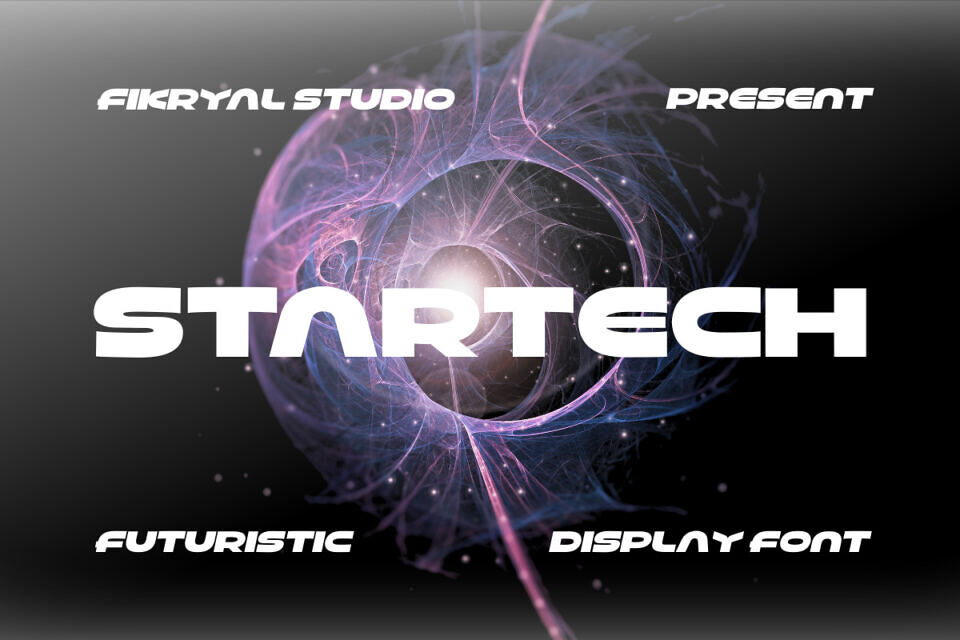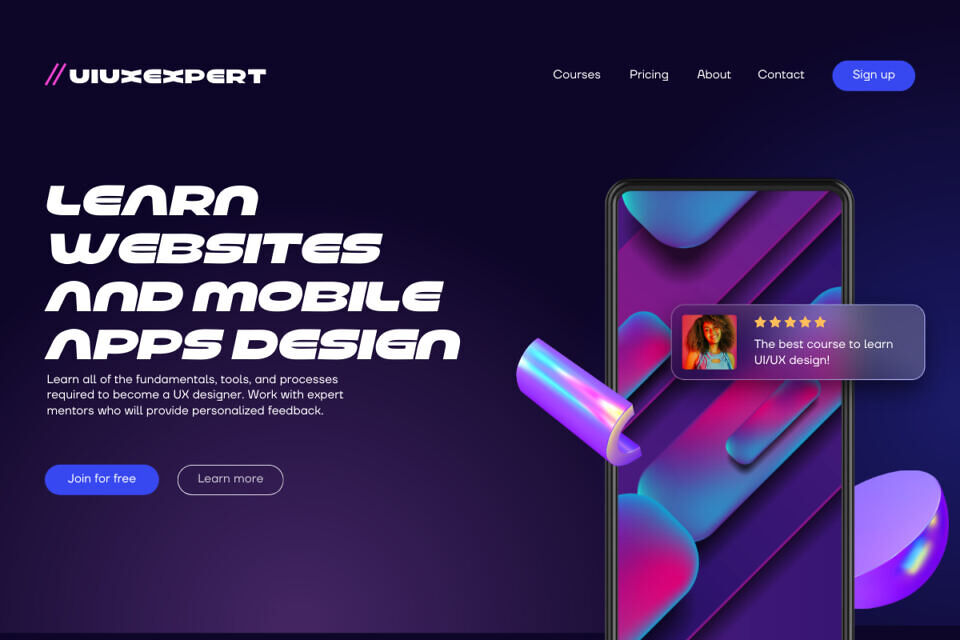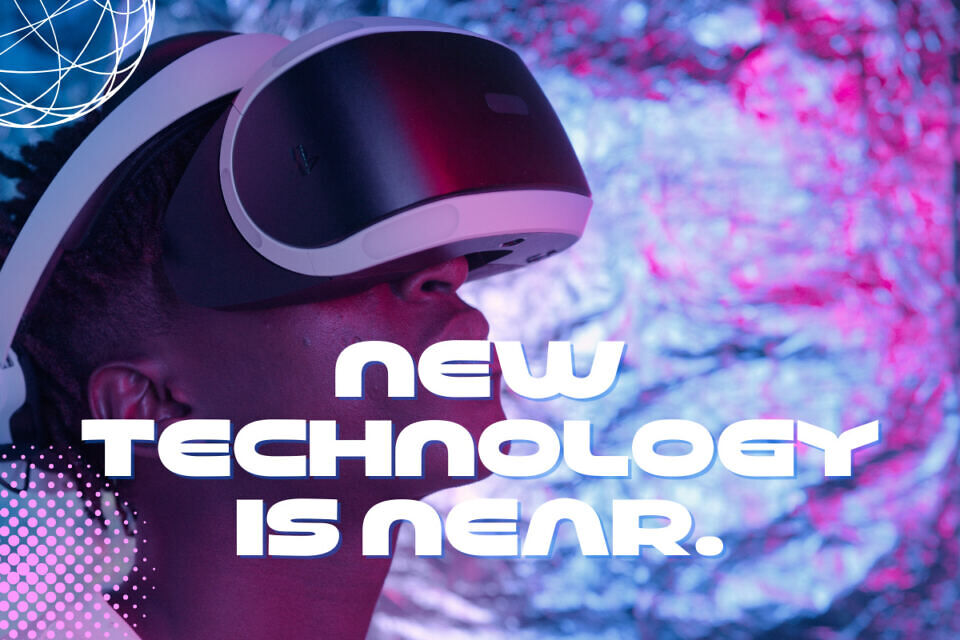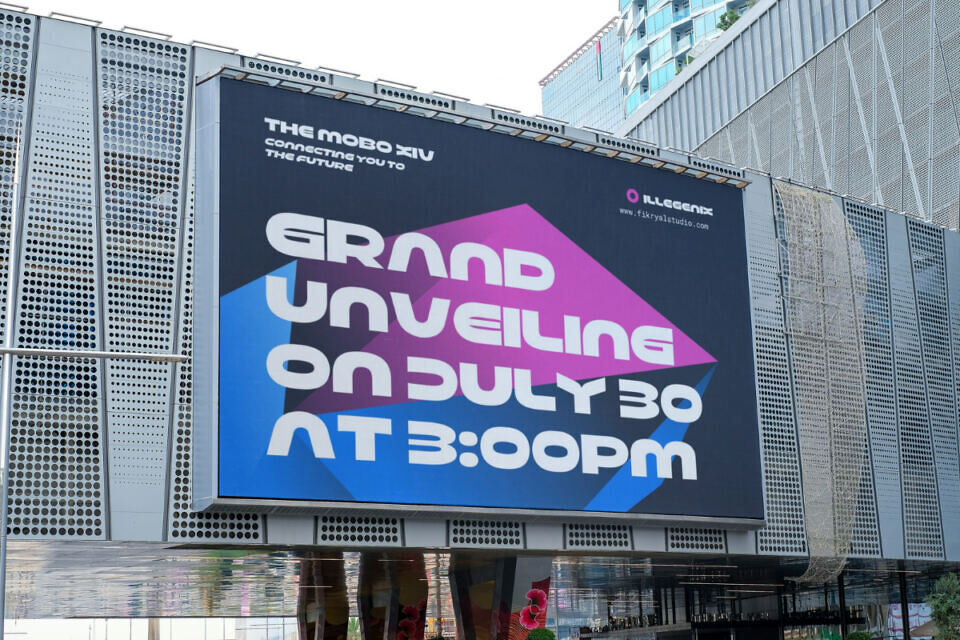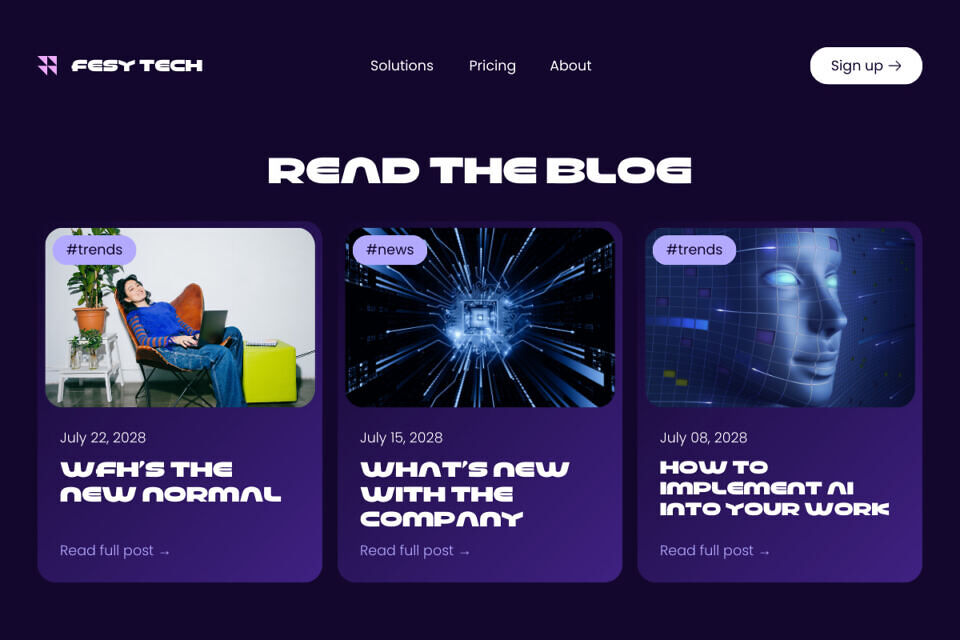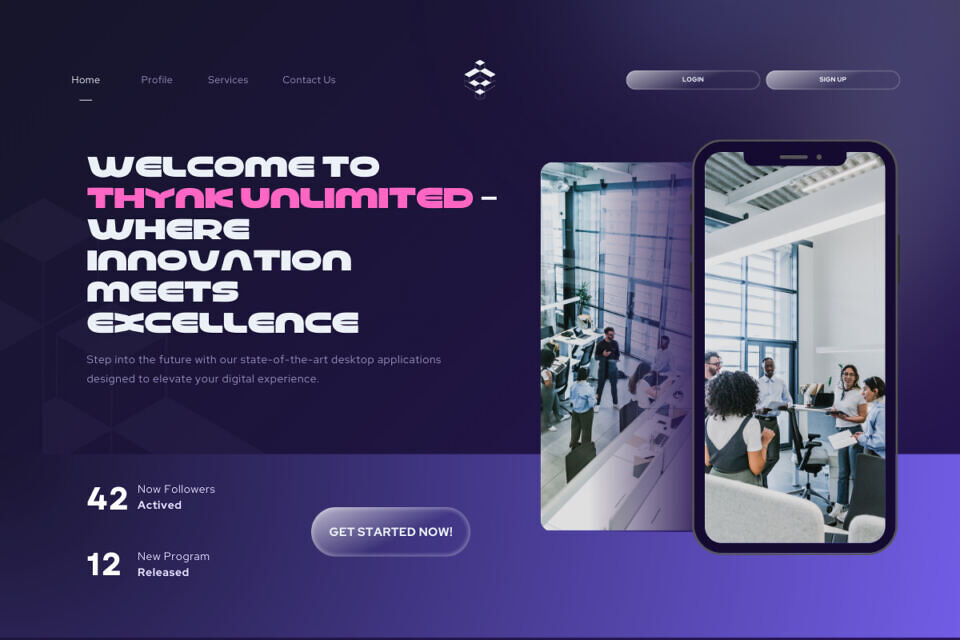
Startech Font
Startech is a futuristic display font that combines modern elements with unique refinement. Created with a subtle dagger yet maintaining an innovative feel, this font adds a unique touch to any design project. With two styles available – regular and italic – Startech provides a signal for expressing visual concepts with more variety.
Even though it only uses capital letters, Startech is still able to give a strong and firm impression with its subtlety. Each letter is formed carefully and in balance combining with a modern design. Clean lines and smooth contours create a flowing, elegant feel. Startech is the perfect choice for a variety of design needs, from bold titles that stand out to corporate branding that wants a progressive yet elegant look.